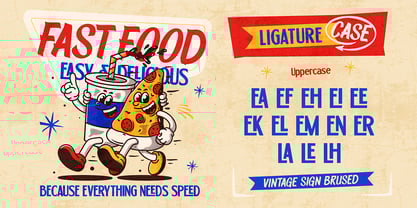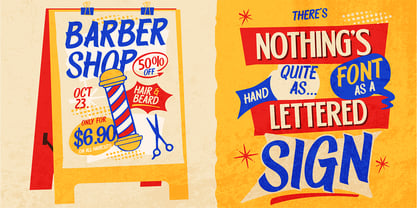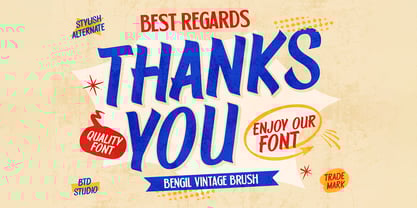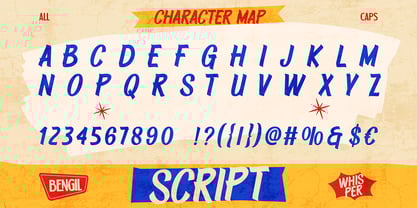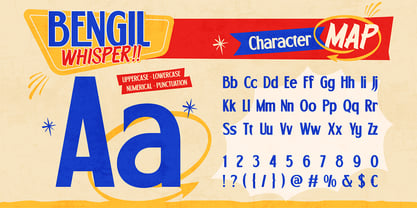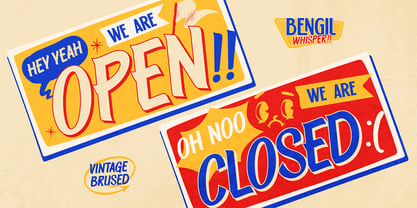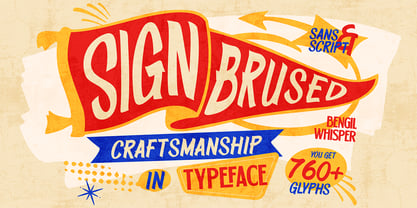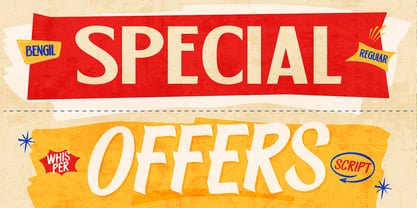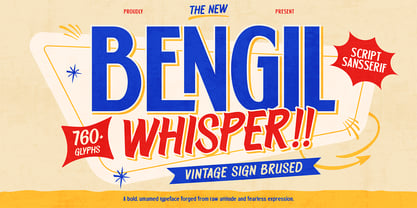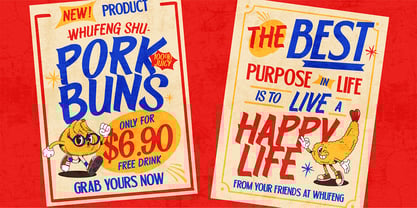
Bengil Whisper
by Burntilldead
The Bengil Whisper Font Family was designed by Eric Kurniawan and published by Burntilldead. Bengil Whisper contains 2 styles and family package options. More about this family
Say hello to Bengil Whisper — the loud, playful, and slightly chaotic font that feels like a street market yelling It’s bold, it’s quirky, and it definitely knows how to grab attention. Designed with a mix of decorative sans serif and brush script style, Bengil Whisper brings vintage sign vibes with a modern twist. Perfect for promos, posters, street food branding, packaging, retro ads, social media banners, fast food menus, or anything that needs BIG personality and high energy. Featuring 760+ glyphs, alternates, and punctuation, you’ve got tons of creative room to experiment. Mix the clean sans with the brush script to create fun typography combos that feel alive and super expressive. Whether you're shouting a NEW PRODUCT, a LIMITED DEAL, or creating nostalgic retro designs — Bengil Whisper makes every word feel louder, funnier, and absolutely unforgettable. Features: A - Z set (Uppercase & Lowercase), Number, Punctuation, Ligatures, Multilingual
Designers: Eric Kurniawan
Foundry: Burntilldead